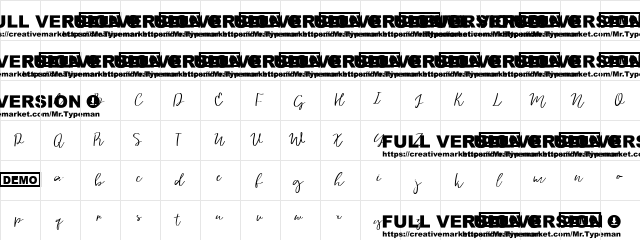
Complete Vingiloth Regular glyph index. Displaying only characters natively supported by Vingiloth Regular font.
Vingiloth is a composed and adaptable typeface that performs quietly and consistently across a wide range of design contexts.